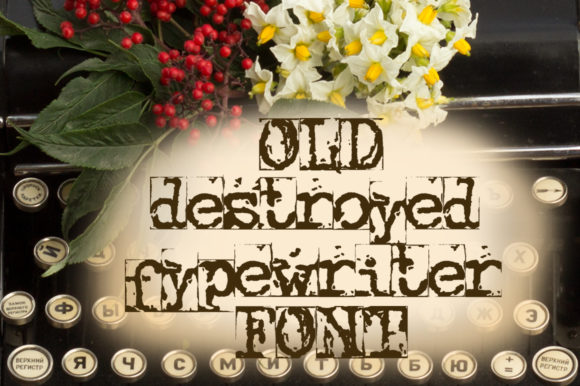
Introducing the Old Destroyed Typewriter Font, a captivating addition to your font collection! Created by the talented Ana Babi, this font is a true gem for those seeking a cool and rough textured display font.
With its unique and edgy aesthetic, the Old Destroyed Typewriter Font is perfect for making a bold statement. Whether you're designing a logo, creating a tattoo, or crafting a poster, this font will instantly add an element of intrigue and personality to your project.
Imagine the impact of your words when they are presented in a font that exudes authenticity and character. The Old Destroyed Typewriter Font captures the essence of a vintage typewriter, evoking nostalgia and a sense of timelessness. It's more than just a font; it's a journey back in time, a way to honor the beauty of imperfections.
But don't be fooled by its vintage appeal. This font is anything but outdated. It seamlessly blends the old with the new, making it a versatile choice for contemporary designs as well. Whether you're going for a retro vibe or a modern twist, the Old Destroyed Typewriter Font has got you covered.
Every stroke of this font tells a story. Its rough texture adds depth and character, making each letter a piece of art in itself. It's the perfect choice for those who want their designs to stand out and leave a lasting impression.